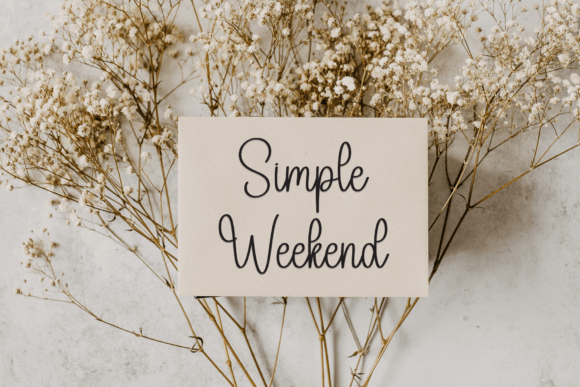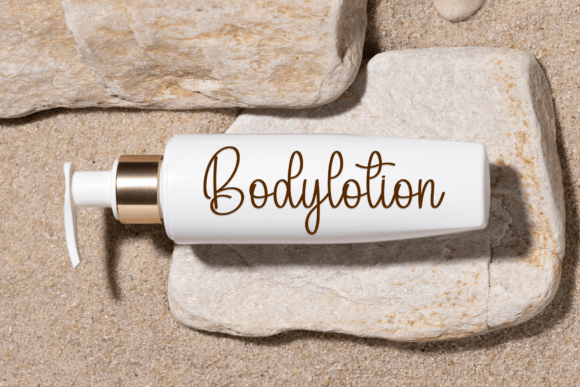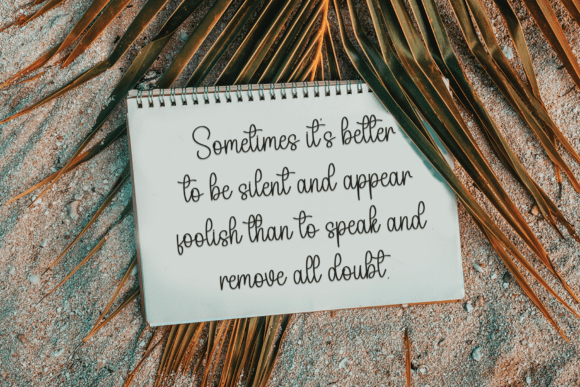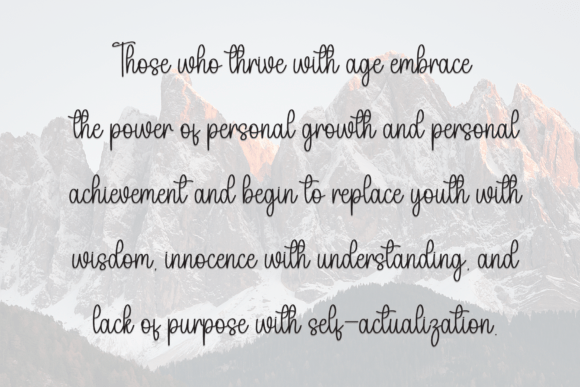
Get Ready to Groove with Groovy: The Ultimate Handwritten Font for Free-Spirited Designs
I’ll never forget the design project that led me to discover Groovy. I was working on a retro-themed T-shirt design, and I just couldn’t find the perfect font to capture that laid-back, effortless vibe. My client wanted something that would transport their audience back to a bygone era, but I was stuck in a design rut. That was until I stumbled upon Groovy, a new handwritten font that instantly resonated with me.
From the first glance, I knew Groovy was special. Its smooth, continuous flow and organic, casual style seemed to scream “good vibes only.” I was hooked, and I knew I had to share this amazing font with fellow designers, crafters, and creative hobbyists.
What I Love About Groovy ✨
- ✅ Smooth, continuous flow: Groovy’s handwritten style is incredibly fluid, making it perfect for designs that need a natural, effortless look.
- ✅ Organic and casual: This font is all about embracing the imperfections of handwriting, giving your designs a refreshingly authentic feel.
- ✅ Perfect for retro-inspired designs: Groovy’s nostalgic vibe is ideal for T-shirts, social media quotes, bohemian branding, and more.
While Groovy is an amazing font, there are a few minor limitations to keep in mind:
- ⚠️ Limited use in very formal designs: Groovy’s casual style might not be the best fit for very formal or professional projects.
- ⚠️ Some glyphs may require manual adjustment: Depending on the design, you might need to tweak certain glyphs to get the perfect look.
The Story Behind Groovy: A Designer Inspiration
Groovy was inspired by the free-spirited designs of the 1960s and 1970s. Imagine a time when life was a little more relaxed, and creativity was encouraged. The designer behind Groovy wanted to capture that carefree essence in a font that would bring a smile to people’s faces. And, honestly, I think they succeeded!